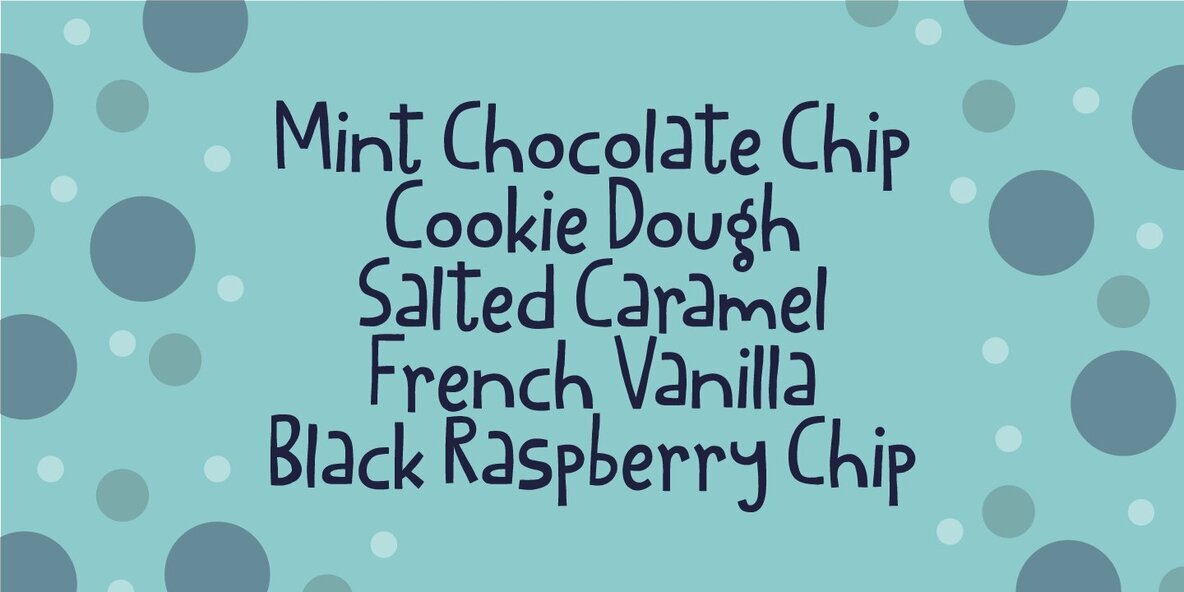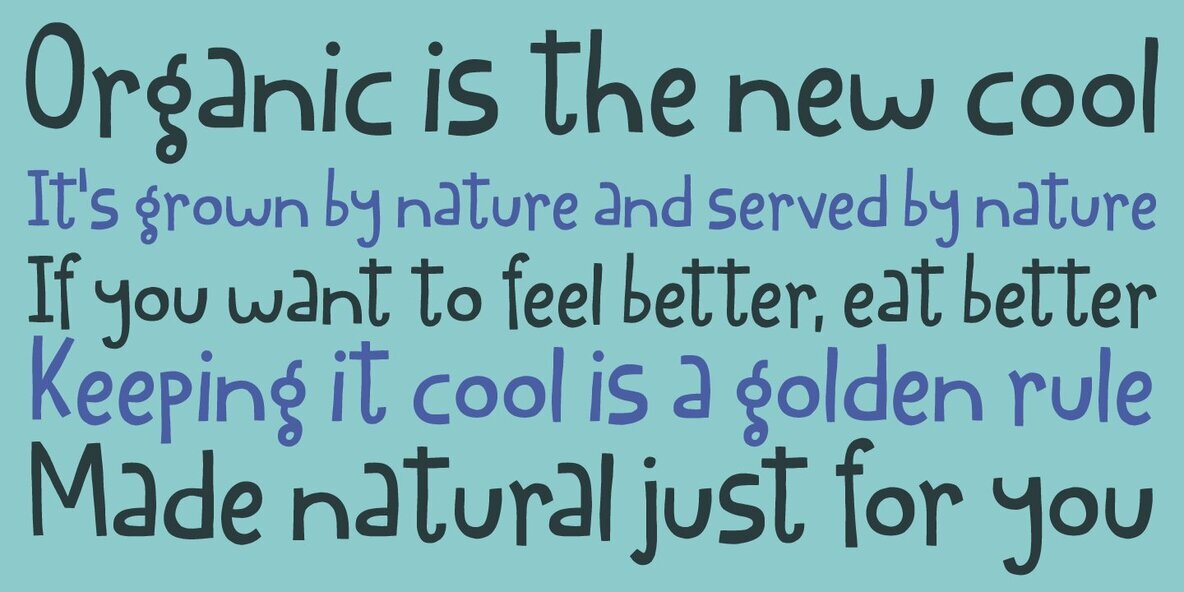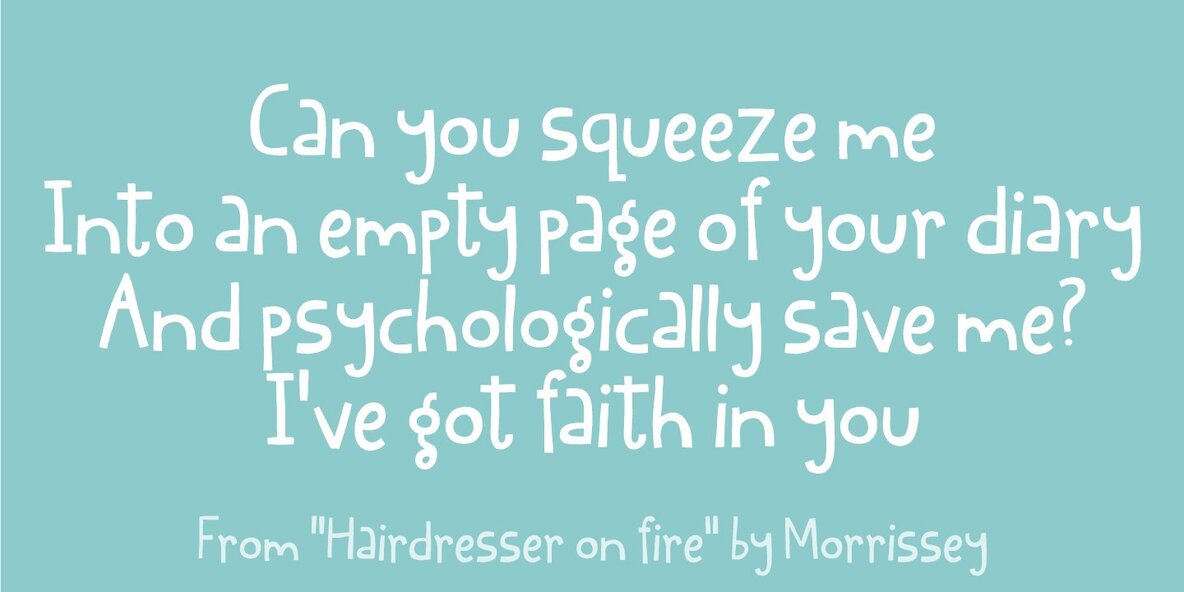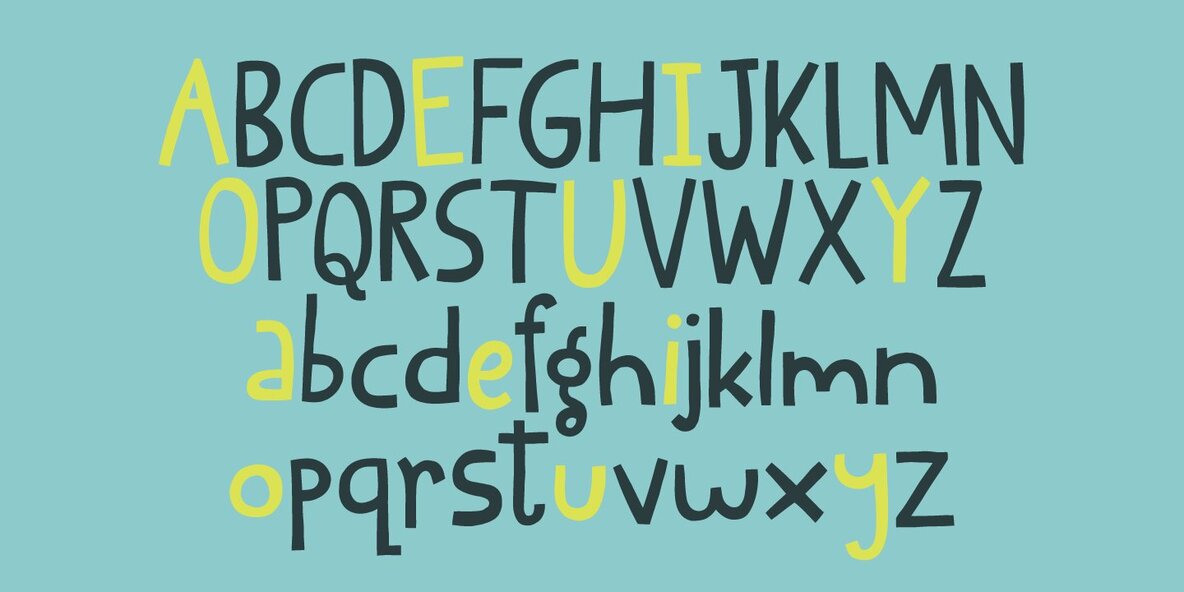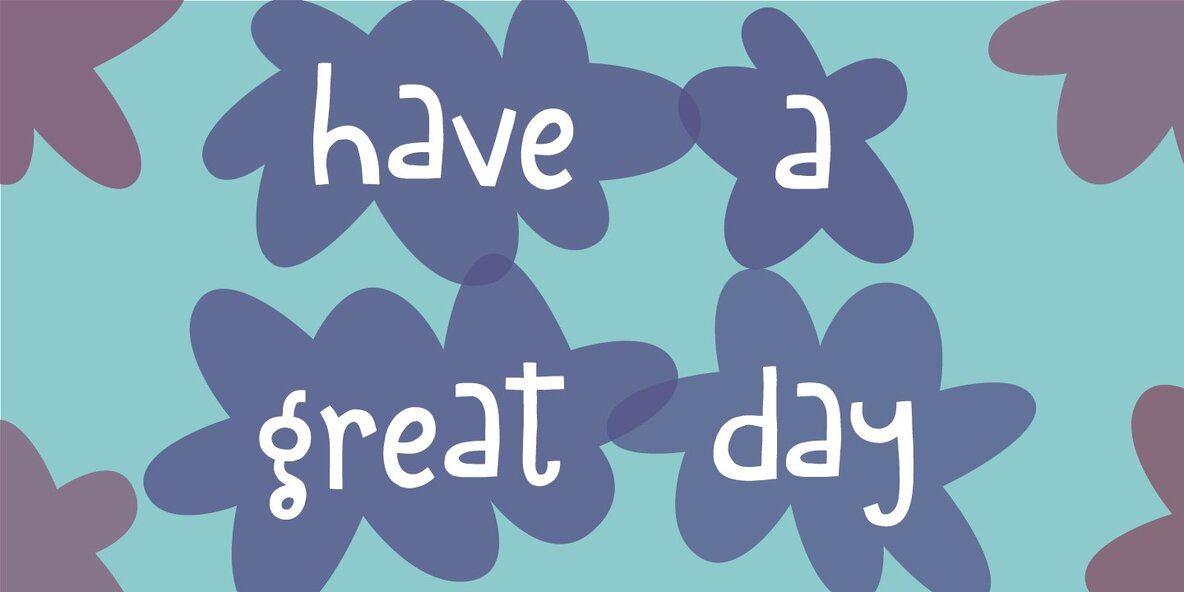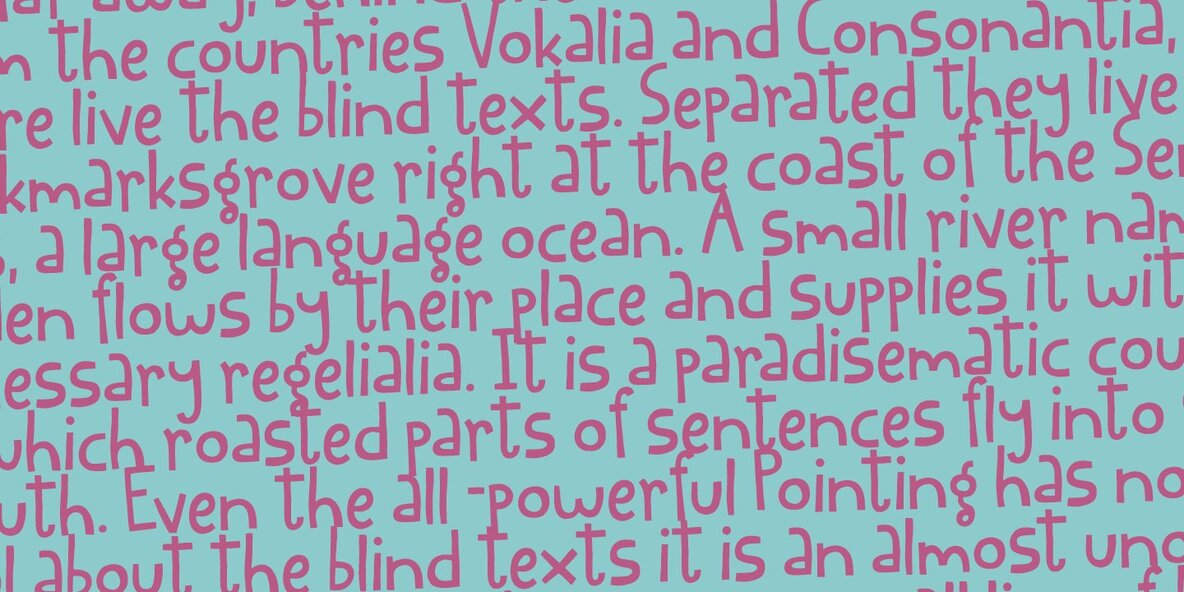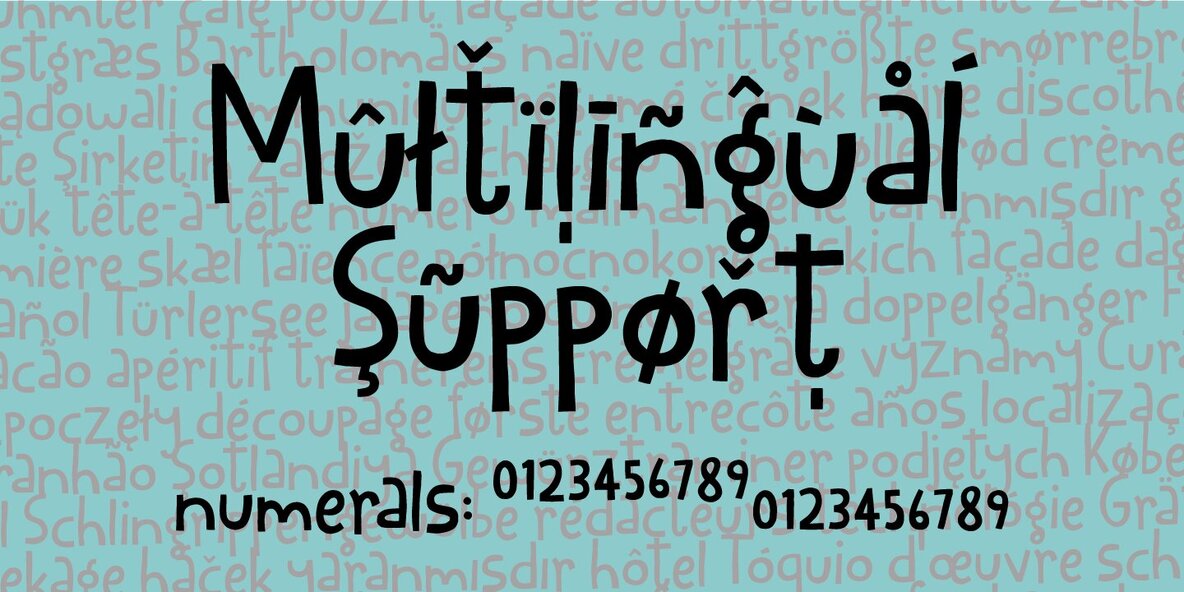
Easy Does It Font
I started making this font with a few days left at work before my 4 weeks vacation. I managed to finish the font on the day my vacation started - but with no stress. Now I can look forward to 4 good weeks at the summerhouse, and look back at the release of this laid back, handmade and somewhat quirky font. Personally I’d use it for anything that needs an organic handmade look - perhaps packaging, posters, flyers or maybe even clothes or toys for kids!